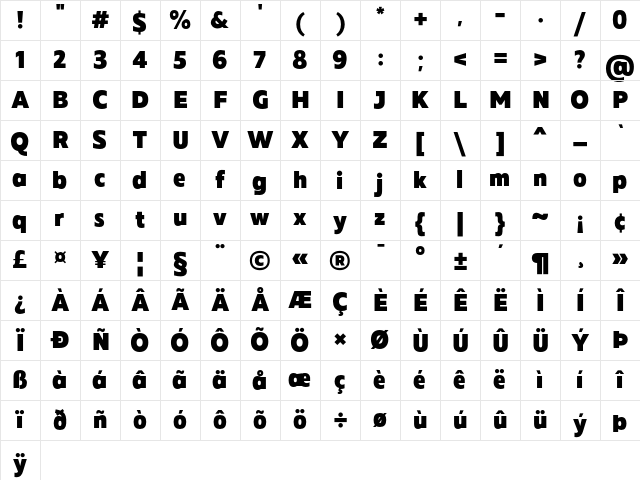
Complete MADE Future X Black glyph index. Displaying only characters natively supported by MADE Future X Black font.
MADE Future X has a distinctly futuristic character, with geometric precision and clean angles that feel at home in technology, gaming, and sci-fi contexts.
Pro Tip: Try MADE Future X with generous letter-spacing in UI labels and navigation - the geometric forms benefit from room to breathe.